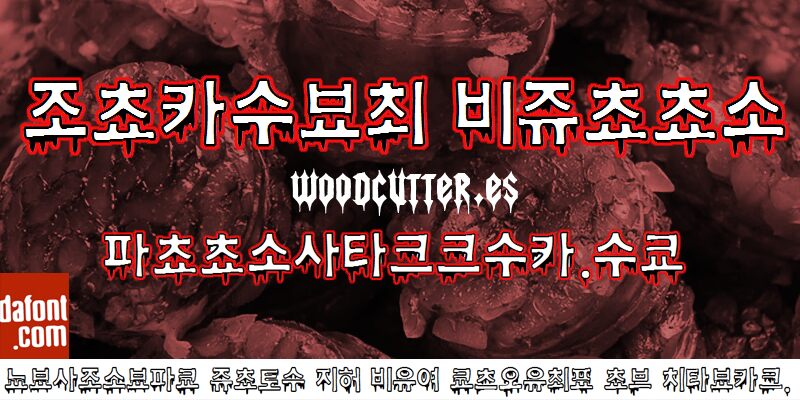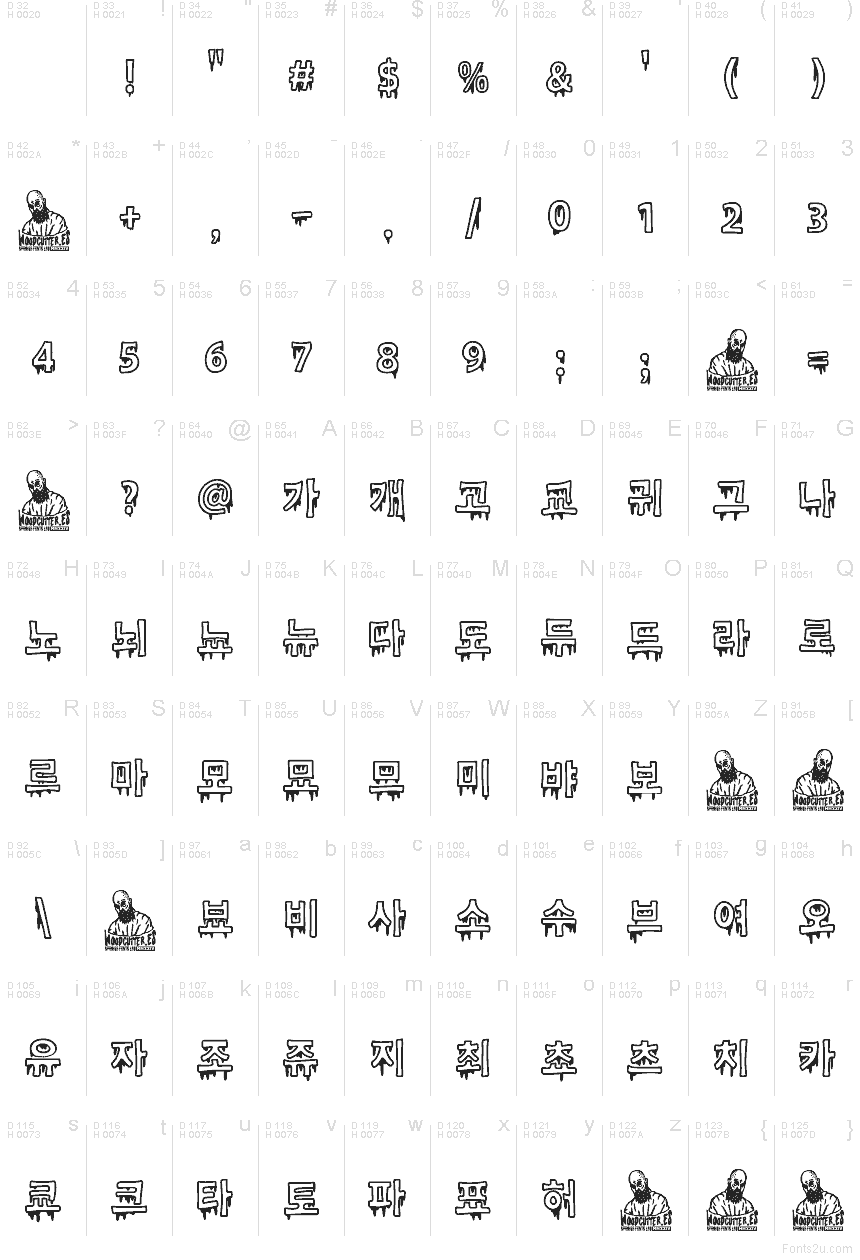
Korean Blood font by Woodcutter is a free horror dingbat typeface that turns every glyph into a jagged, dripping Korean-inspired symbol. The strokes feel hand-scratched and inky, like letters carved into a wall and left to bleed, with bold outlines that hold up even at small sizes. There’s a restless, scratchy rhythm across the line, giving your compositions a tense, cinematic edge.
Using Korean Blood, you get instant K‑horror atmosphere for posters, Halloween flyers, game titles, escape room props, streaming thumbnails, and dark band artwork. This free font works best when used large and sparingly as a headline element; pair it with a clean, neutral sans serif to keep your layouts readable while the dingbats supply the fear factor.